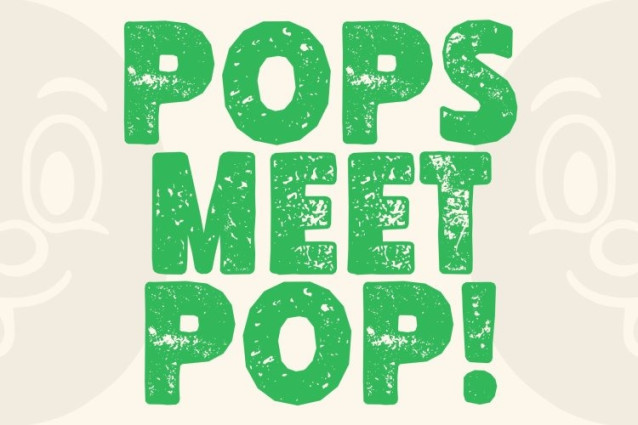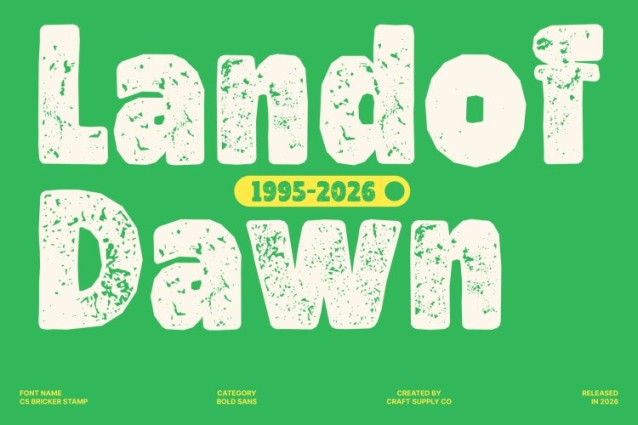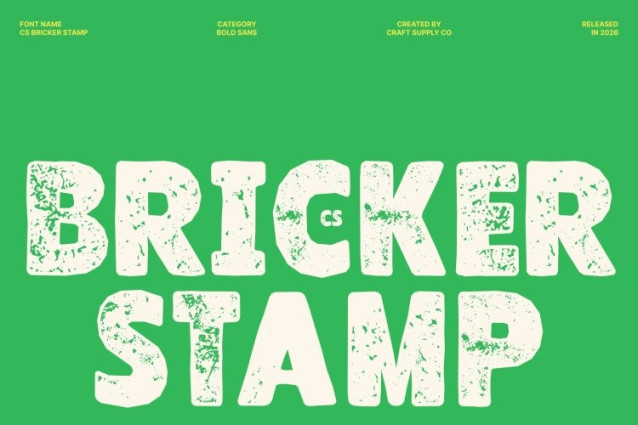
CS Bricker Stamp Font
CS Bricker Stamp Font This is a modern sans-serif font that combines bold, funky, and futuristic forms with a distinctive stamped texture. Inspired by the vibrant aesthetics of the Y2K era, its strong letterforms and dynamic curves capture the digital optimism of the early 2000s, while the textured effect adds a raw, handcrafted twist to its sleek futuristic style.
Retro-Futuristic Design with a Stamped Edge
Featuring rounded shapes, striking proportions, and sleek styling, reflects the cyber-tech and digital trends that defined Y2K design. The stamped texture introduces subtle imperfections and ink-like depth, creating a visual contrast between futuristic precision and organic character. This makes the font ideal for chrome effects, neon visuals, glitch-inspired graphics, and expressive compositions.
Perfect for Bold and Trend-Driven Designs
Designed for high-impact visuals, works beautifully in modern branding, streetwear graphics, gaming visuals, music promotions, and futuristic packaging. Its bold structure combined with the textured finish ensures every design feels energetic, distinctive, and full of personality.
A Statement Typeface for Retro-Futuristic Creativity
More than just a font, represents bold self-expression and creative experimentation. By blending Y2K nostalgia with a stamped, tactile texture, it offers designers a unique way to create visuals that feel both retro-inspired and refreshingly contemporary.